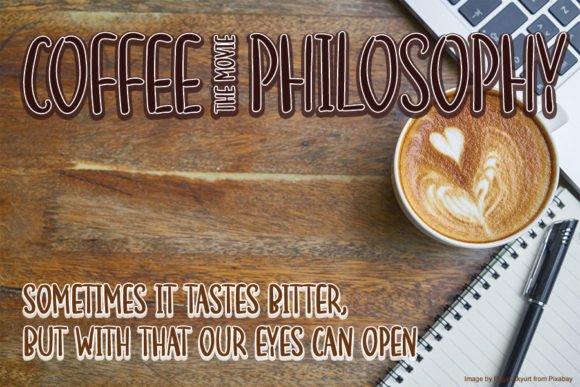
Introduction to Coffee Phylosophy Font
Coffee phylosophy is a bouncy and quirky display font.
It will add a fresh and contemporary touch to your designs Add this unique display font to each of your creative ideas and notice how it makes them stand out.
Key Features of Coffee Phylosophy Font